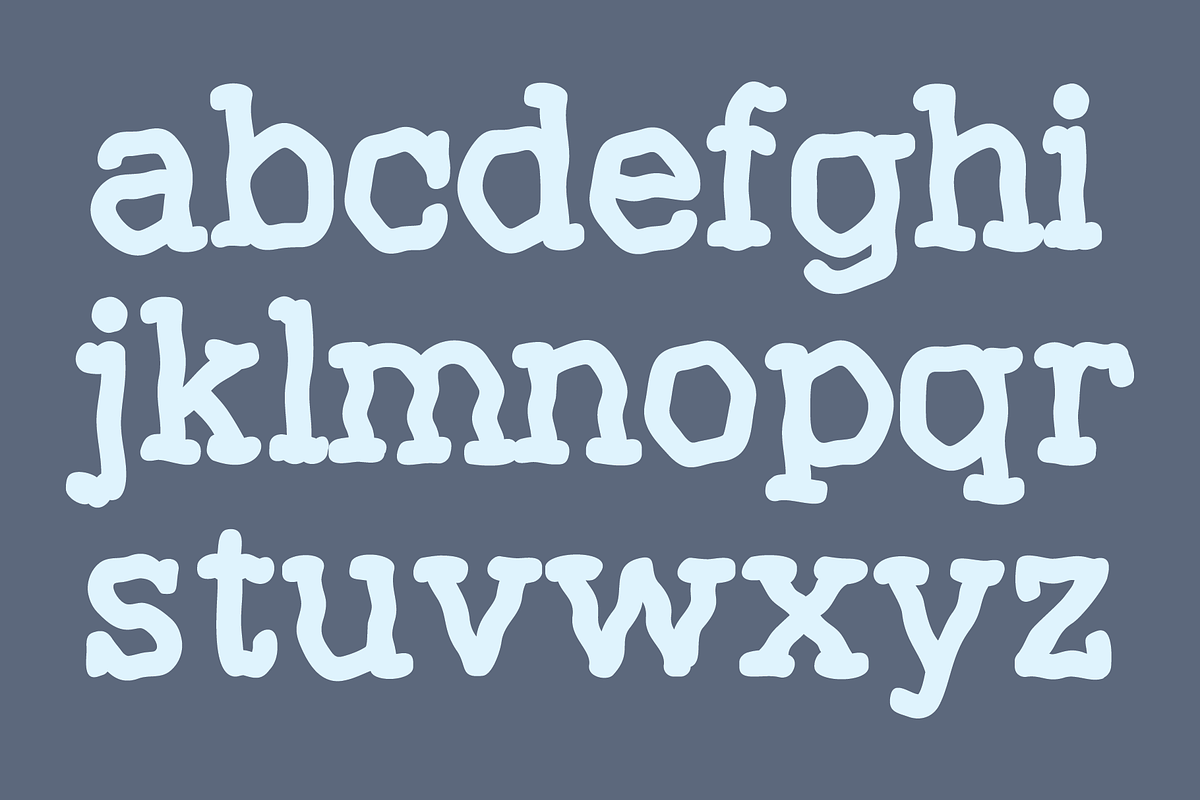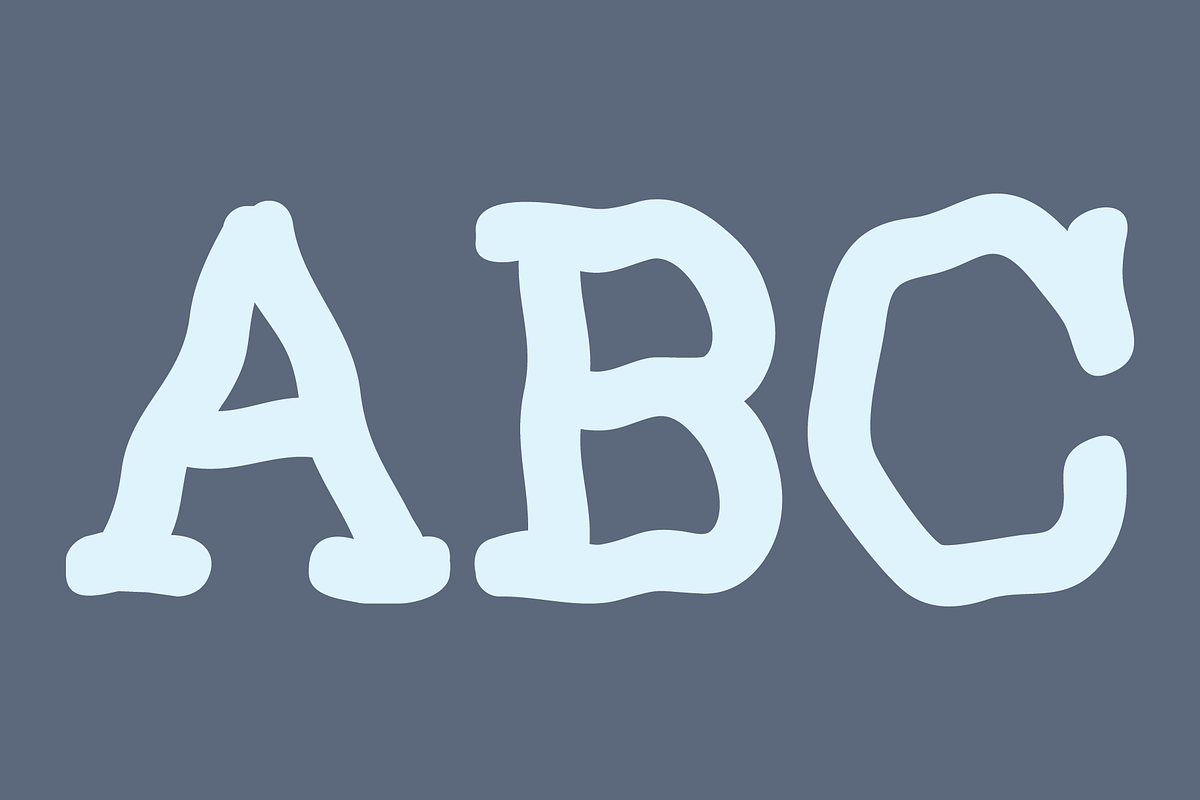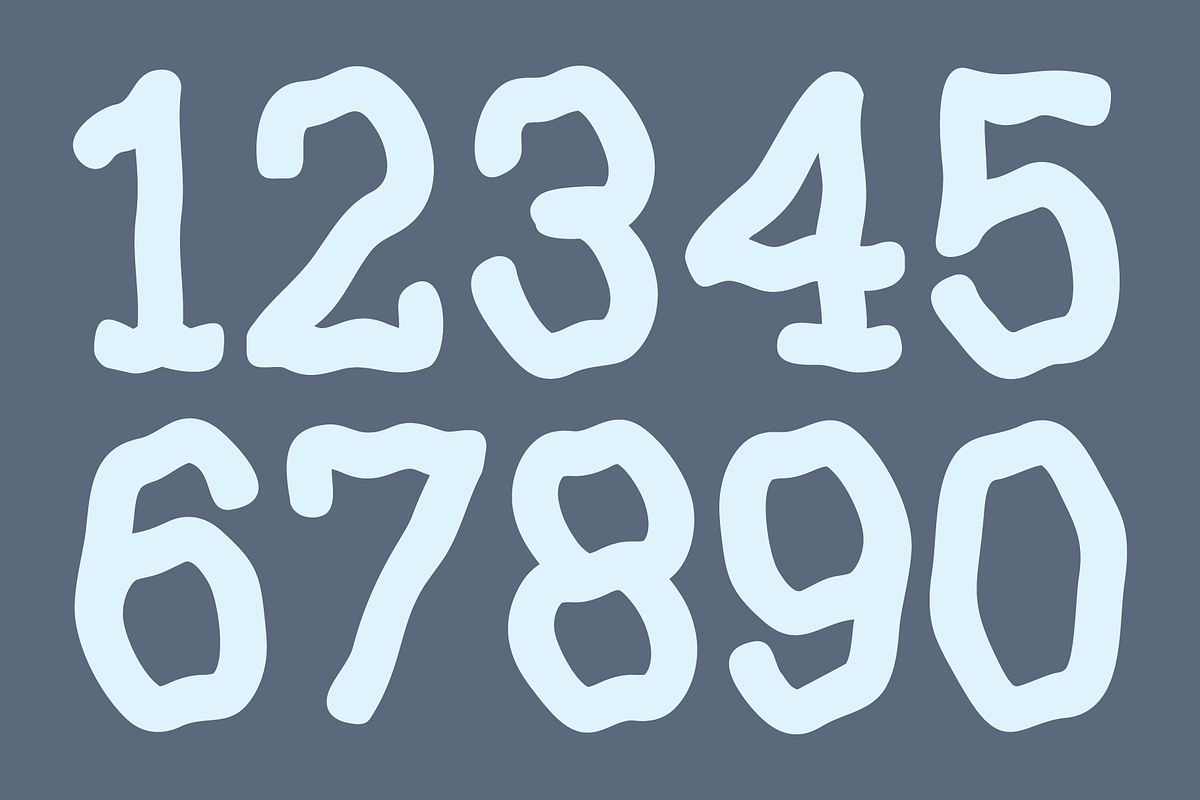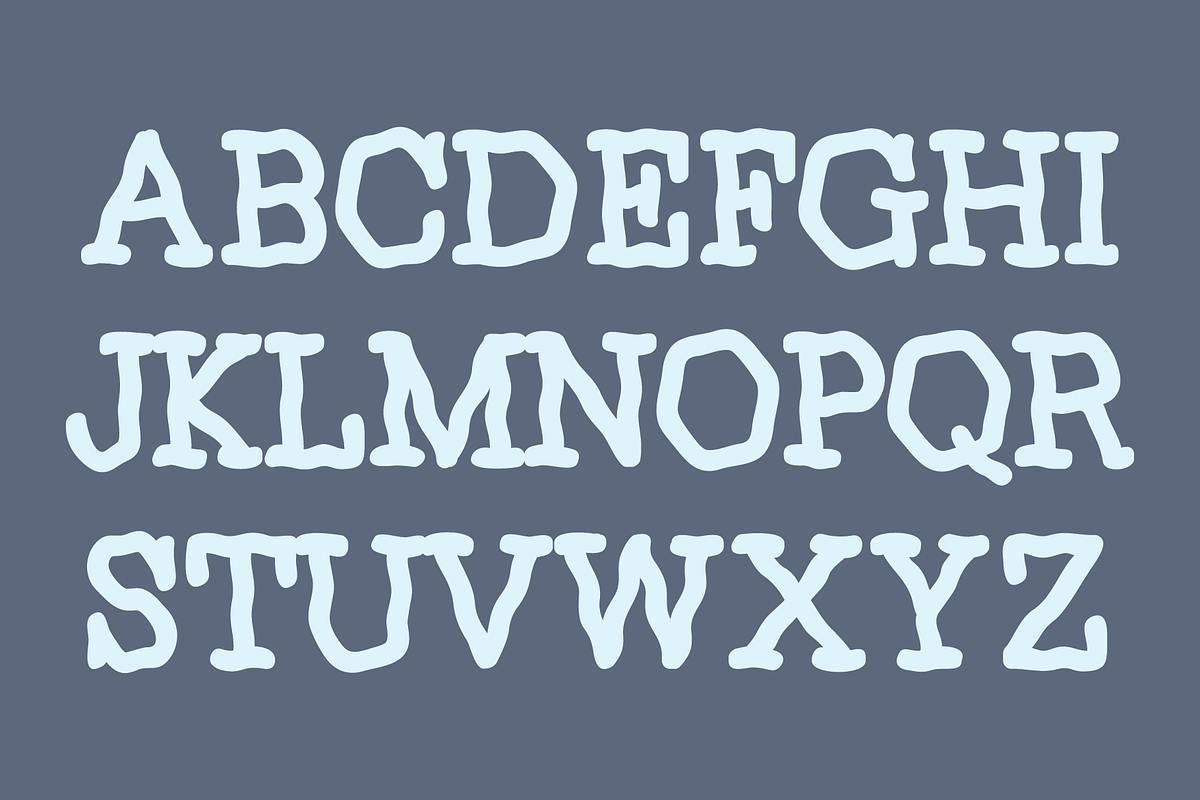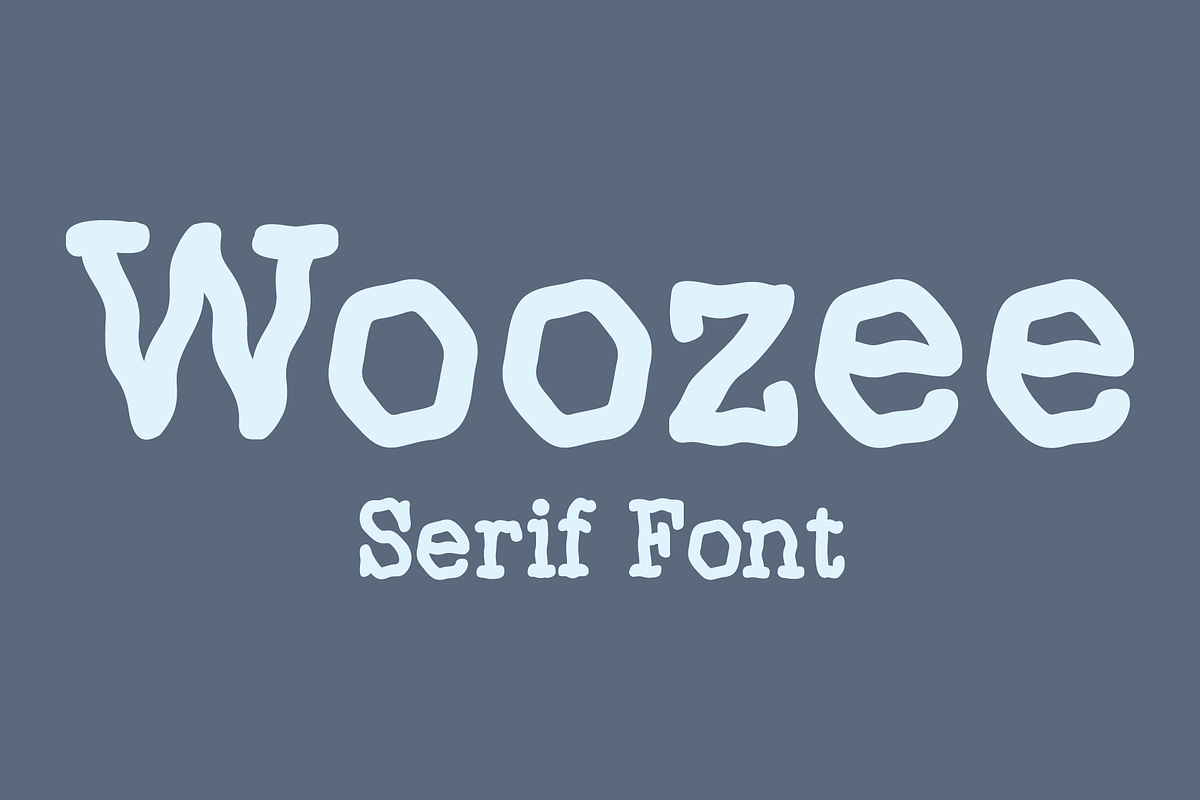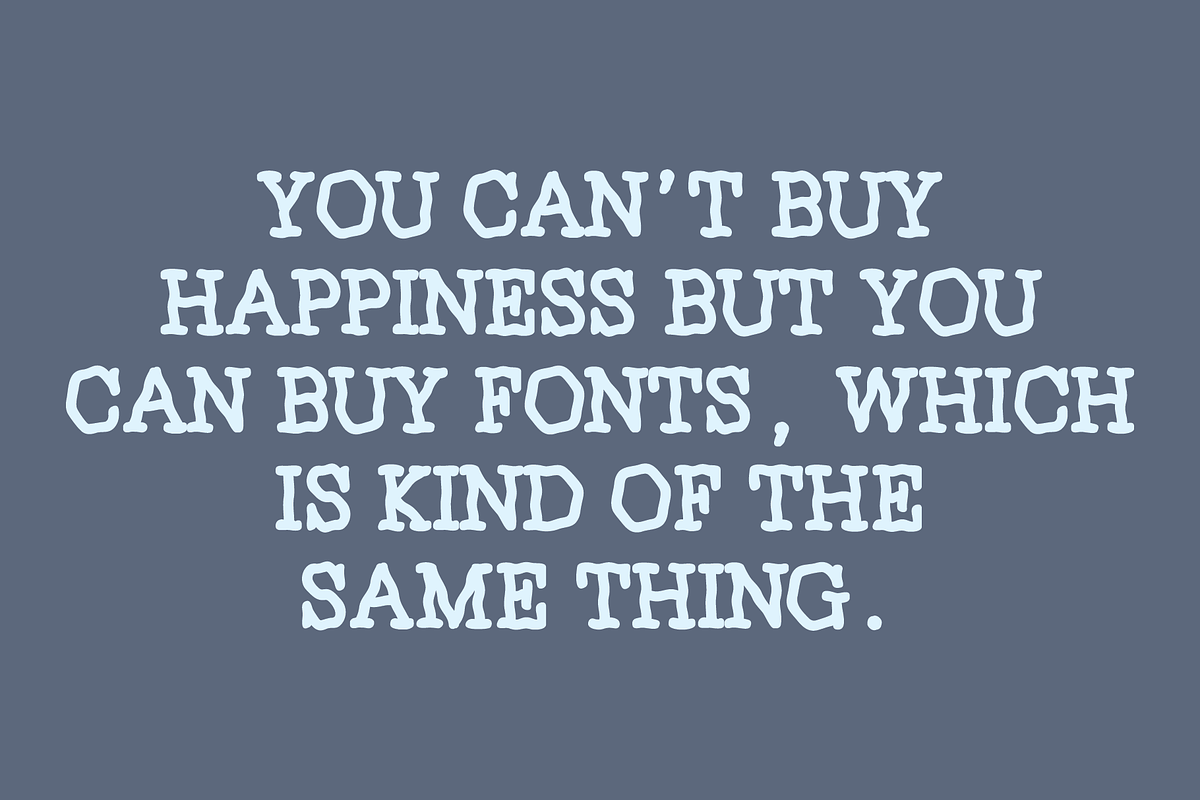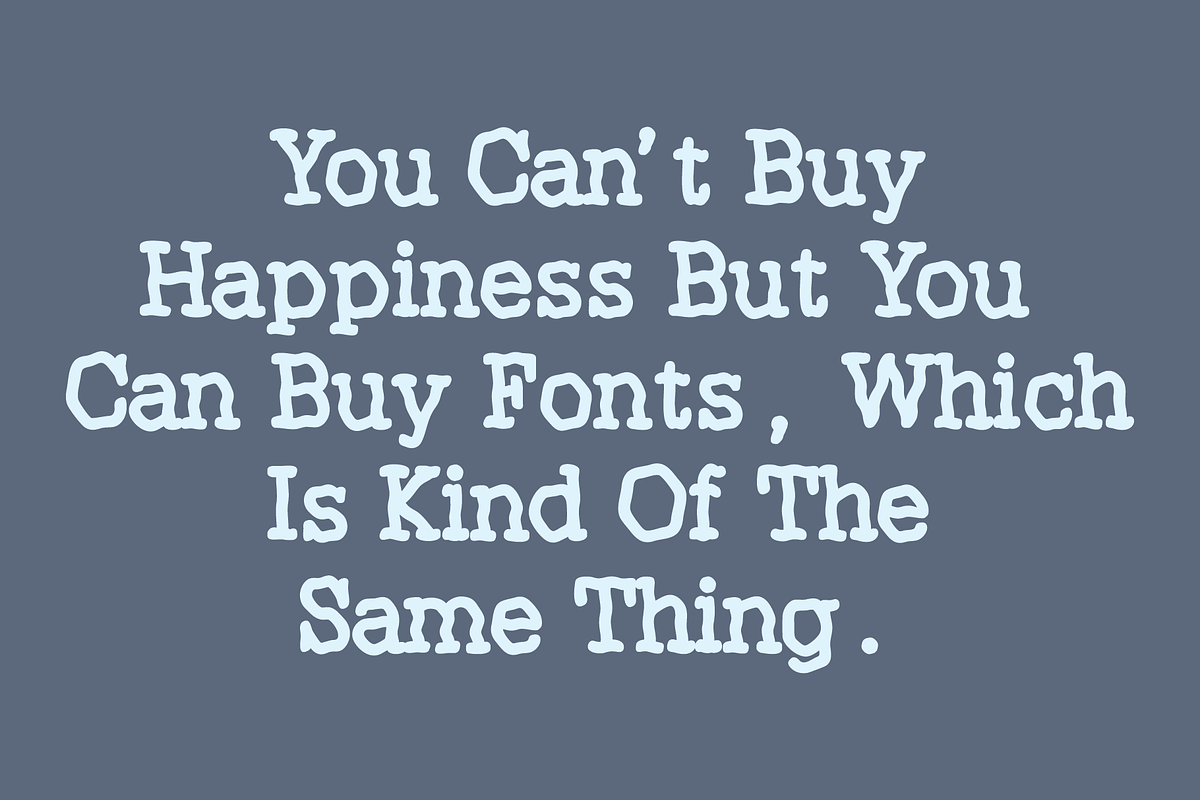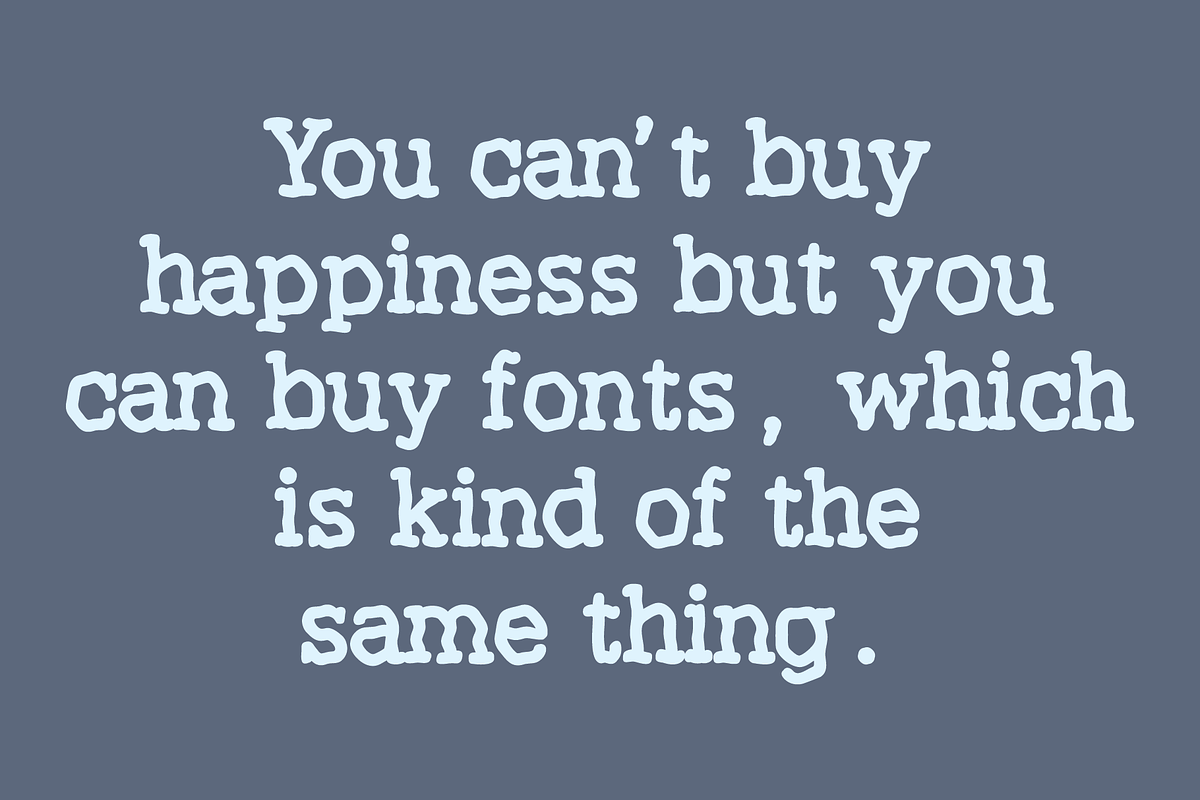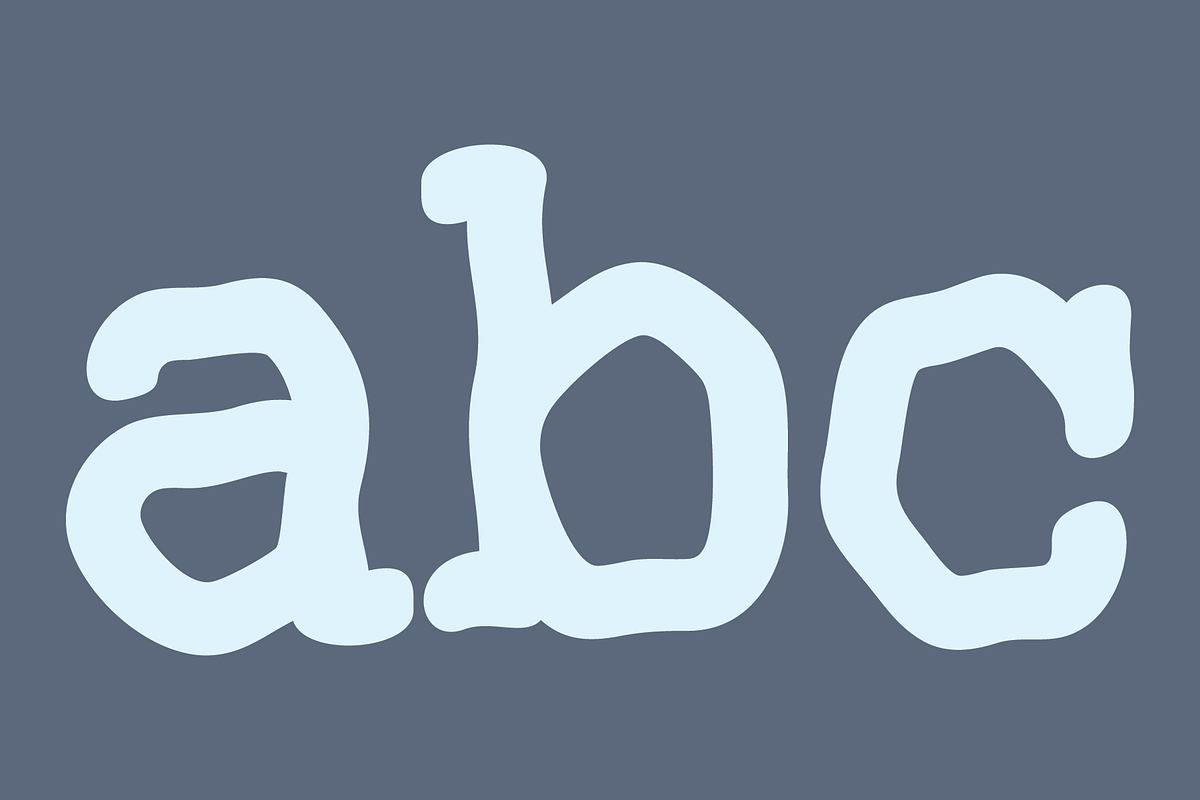
Woozee - Serif Font
Woozee is a serif font with characters that appear to be wobbly and are not clean and crisp. It includes upper and lowercase alphabets, numbers, punctuation, accented characters, symbols, and miscellaneous characters.